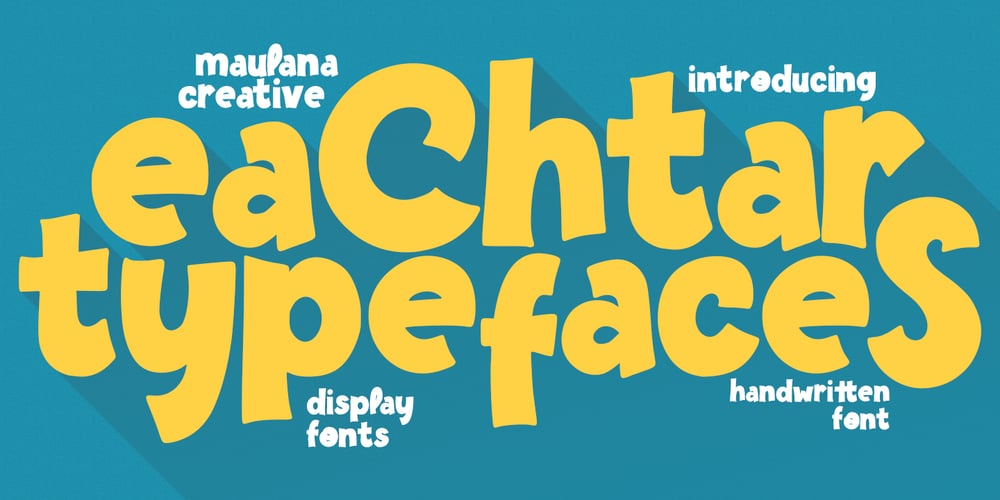
MC Eachtar Font Family was designed by Gilang Maulana and published by Maulana Creative. MC Eachtar contains 1 styles and family package options. Eachtar is a handwritten display font. With medium low contrast stroke, fun character with a bit of ligatures and alternates. To give you an extra creative work. Eachtar font support multilingual more than 100+ language. This font is good for logo design, Social media, Movie Titles, Books Titles, a short text even a long text letter and good for your secondary text font with sans or serif. Make a stunning work with Eachtar font. Cheers, Maulana Creative